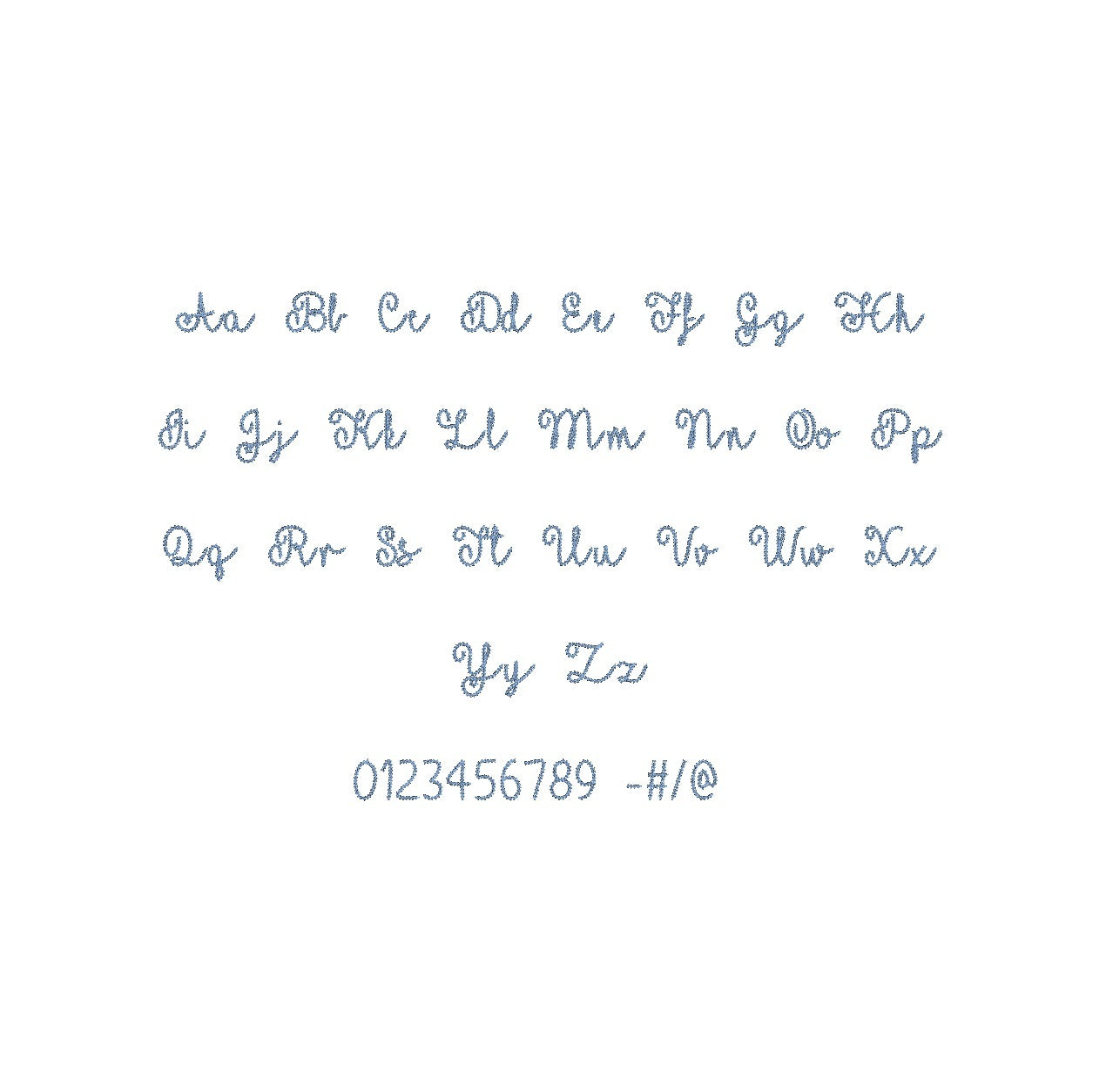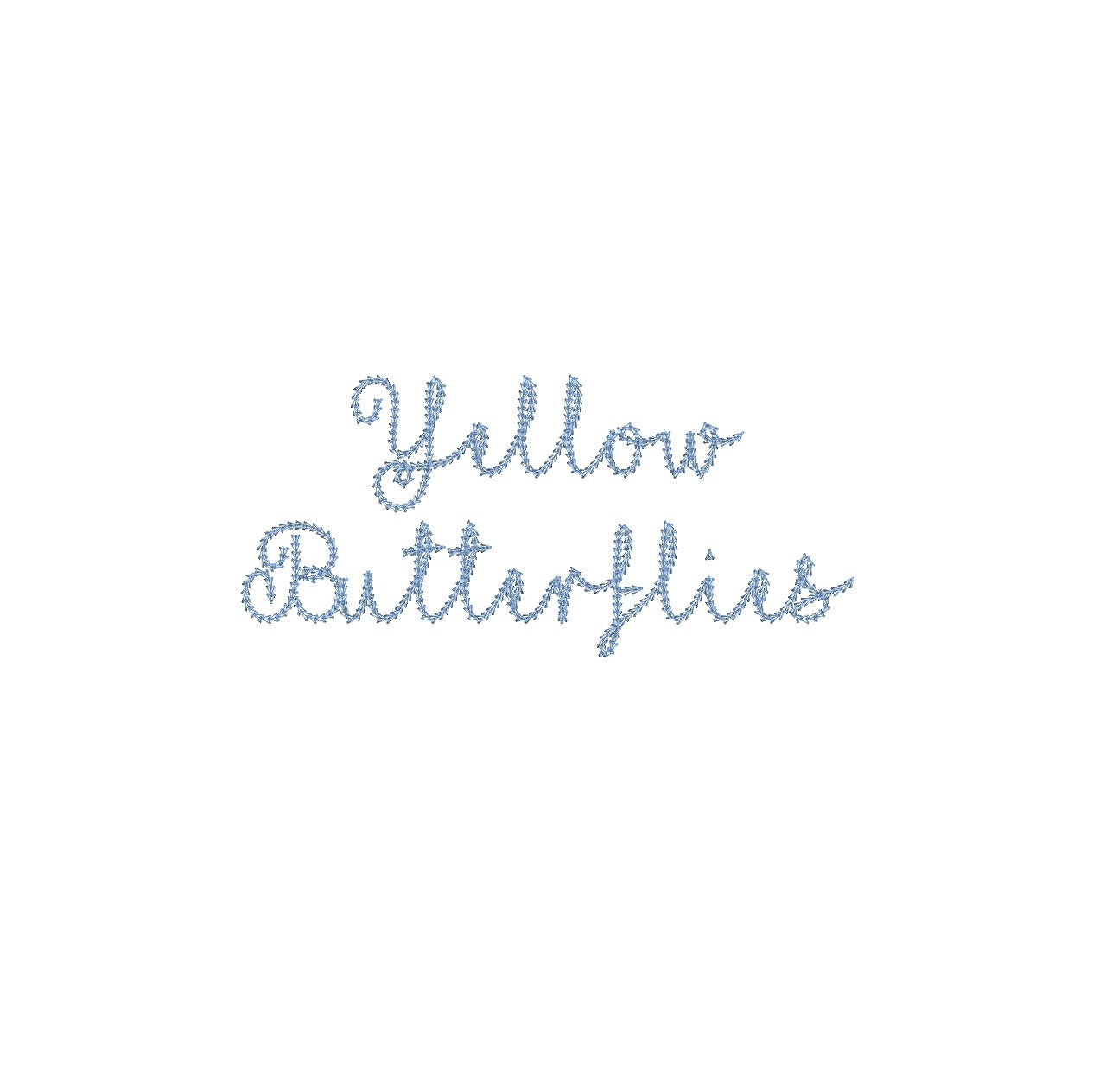
Yellow Butterflies Chain Stitch ESA font
Elevate your embroidery with the enchanting Yellow Butterflies Chain Stitch ESA font. Seamlessly compatible with Wilcom Studio e4.5.6 and Hatch 3 versions and up, this font brings a touch of whimsy and charm to your designs. Craft delightful monograms, labels, and embellishments effortlessly. Seamlessly integrate the font to unlock a world of creative possibilities. Download Yellow Butterflies Chain Stitch ESA font now to infuse your embroidery with a burst of joyful creativity. Elevate your projects with this exceptional font, transforming each piece into a work of art. Add a touch of vibrant elegance to your creations with this versatile addition to your toolkit.